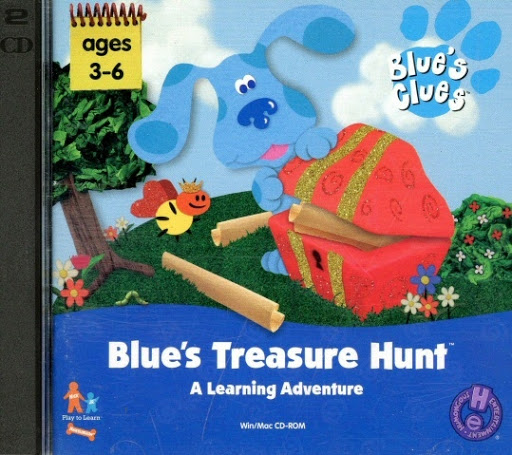
The blue's clues font contains 36 beautifully designed characters. Blue’s clues mac & cheese is a mac and cheese food from kraft released in 2001.
Based on the television series blue's clues kids can learn different skills that will help them get ready for grade school. Font for blue's big treasure hunt please the closest font i have got is grilled cheese. This game is meant for kindergarteners.
You can use the blues clues to create interesting designs, covers, shop and store name and logos. This family contains 1 fonts in styles such as bold, italic and light. Regular), 230 characters in total.
About the font blues clues. Blue's clues & you!, the reboot of the original show, premiered in 2019 and is going strong! Blue 's clues regular version 1.00.
Detailed information on the blues clues font: Search from a wide range of typography fonts Blues clues available in windows and mac os x version.
Blues clues is free for personal use only. Bluesclues secondary version 001.000 font (font family name: The blue's clues font contains 36 beautifully designed characters.
Detailed information on the blues clues font: Download blue's clues font free in ttf format for windows and mac. 4.5 out of 5 stars.
️ customize your own preview on ffonts.net to make sure it`s the right one for your designs. Download free fonts for mac, windows and linux. Blues clues is the perfect font for all your fun designs.
Blue’s clues secondary font family search results,fontke for you to share blue’s clues secondary resources,provide font download,font upload,font identification,font conversion,font preview,font generation,font design sample,font information and other services. If you recognize the font from the samples posted here don't be shy and help a fellow designer. 00blue'scluescreated by fslib on 11/6/2012 8:48:37 am.
Download blues clues font with regular style. File:blues clues mac & cheese.jpeg. The font blues clues is also perfect for branding projects, homeware.